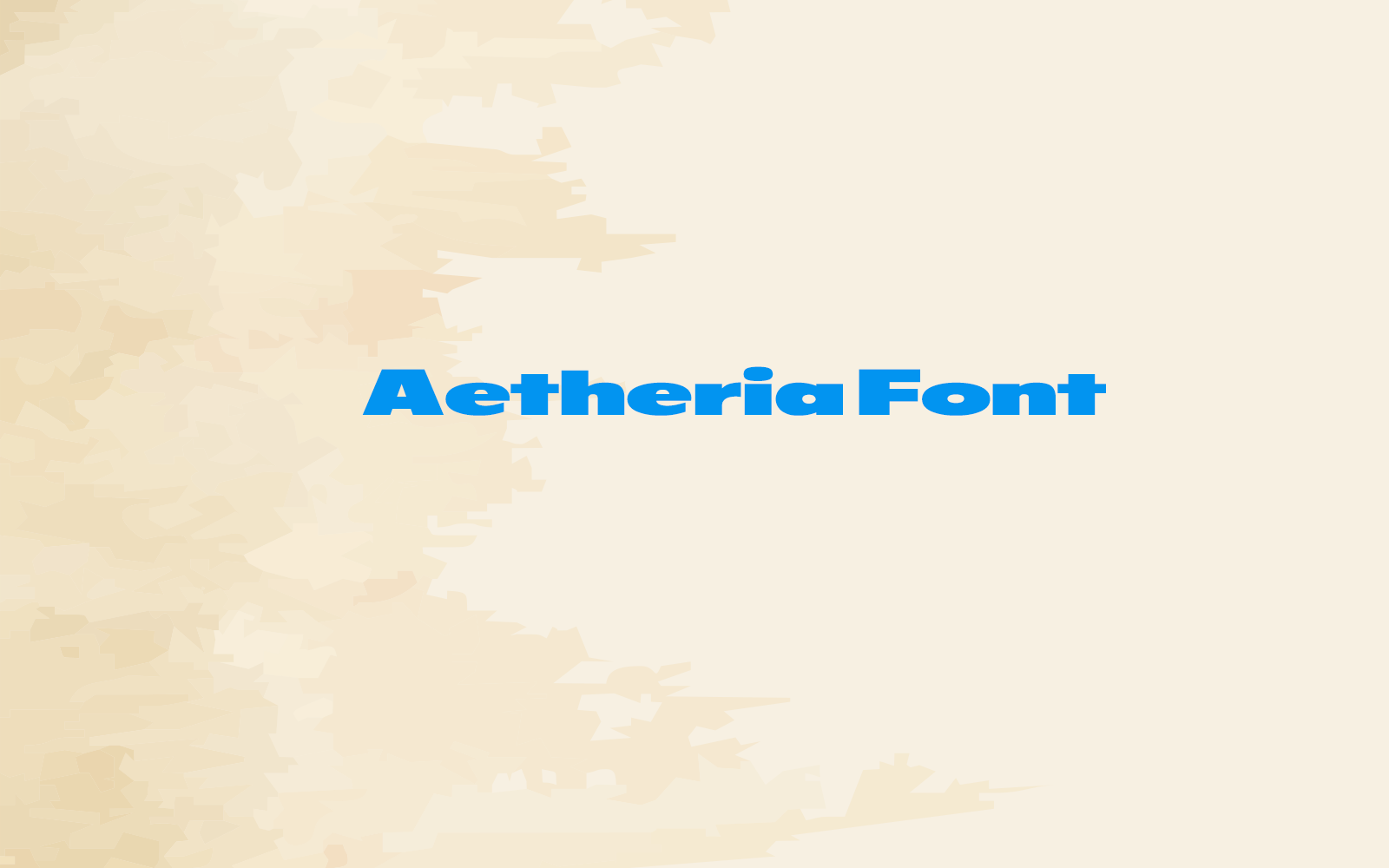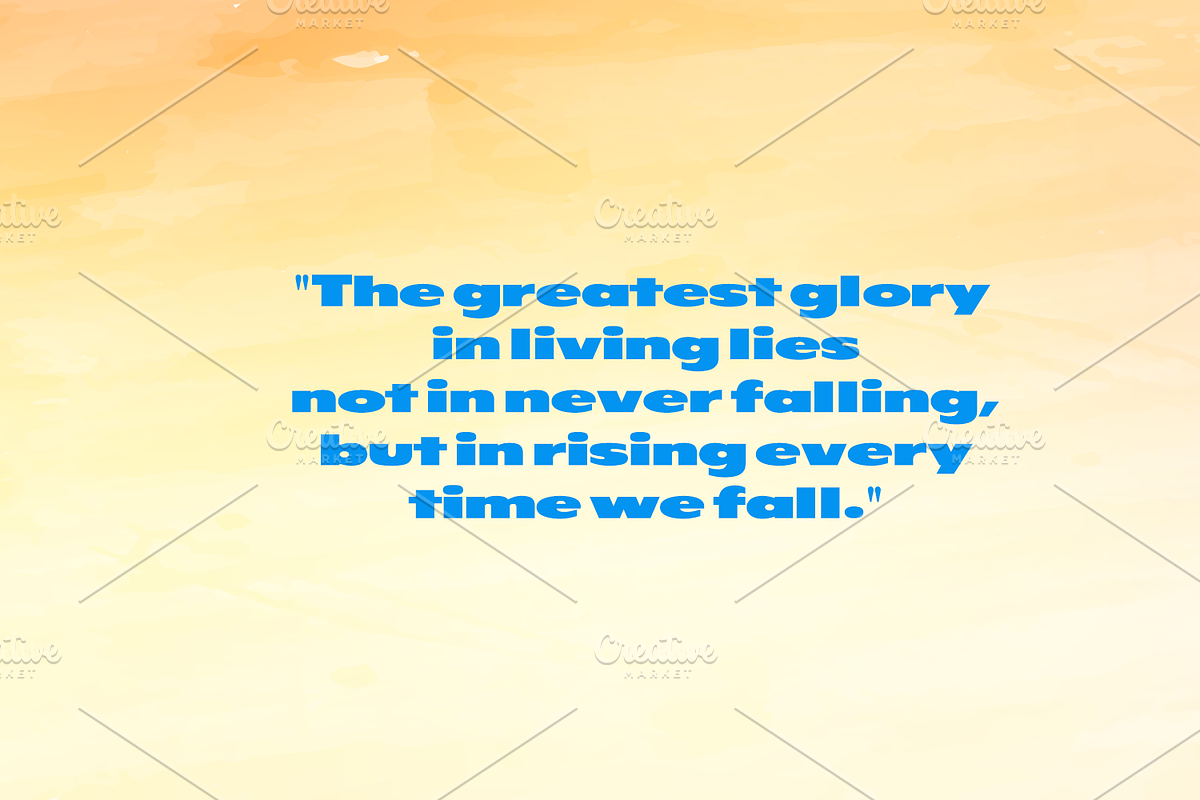
Aetheria Font-37-24
Discover Aetheria – a refined and versatile typeface that brings elegance and clarity to every word. Whether you're crafting sleek branding materials,
editorial layouts, or high-end product designs, Finesse delivers sophistication with every stroke. Its clean, graceful lines make it the perfect choice for designers who want to elevate their work with a touch of timeless style.